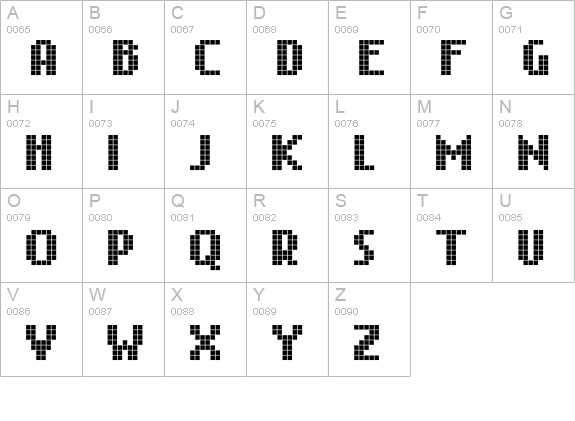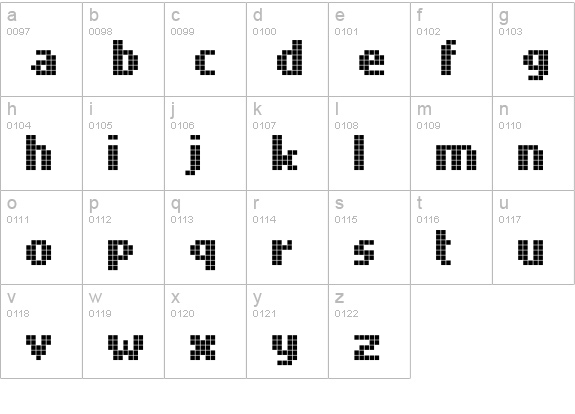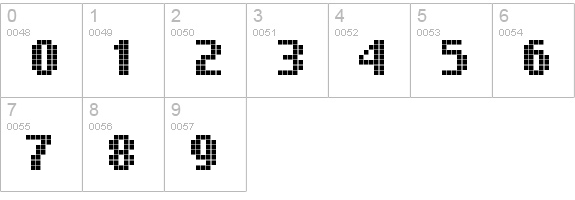
Nokian font is a beautifully crafted typeface that exudes elegance and sophistication. With its sleek lines and modern aesthetic, Nokian is perfect for a wide range of design projects, from branding to editorial layouts. This versatile font is sure to make a statement and elevate any design it is used in. The best part? Nokian font is available for free download at FontsMarket.com. This means you can easily access this stunning font and incorporate it into your projects without any cost. Don't miss out on the opportunity to enhance your designs with the timeless appeal of Nokian font. Download it today and see the difference it can make in your work.